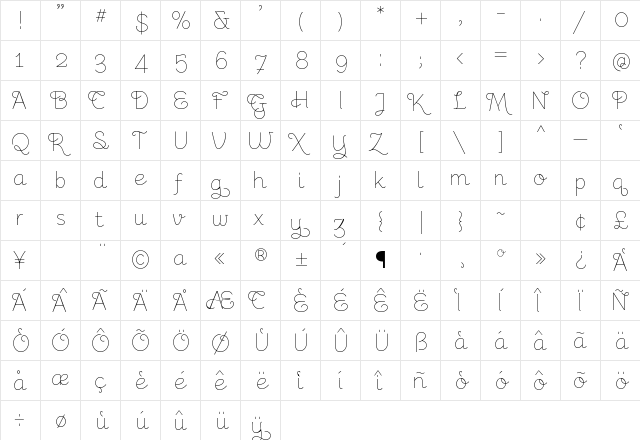
Kushtie Script Script
| Style | Script |
| Foundry | HeadFirst Design |
| Designer | Morice Kastoun |
Design Context for Kushtie Script Typeface
Kushtie Script brings a calligraphic fluidity to the page — its connecting strokes and expressive curves give it an unmistakably human quality.
Font Pairing: Combine Kushtie Script with a simple geometric sans for maximum contrast — the tension between flowing curves and clean structure is a classic typographic pairing.
Pro Tip: Pair Kushtie Script with a clean sans-serif for supporting text. The contrast between fluid script and geometric structure creates an elegant typographic hierarchy.